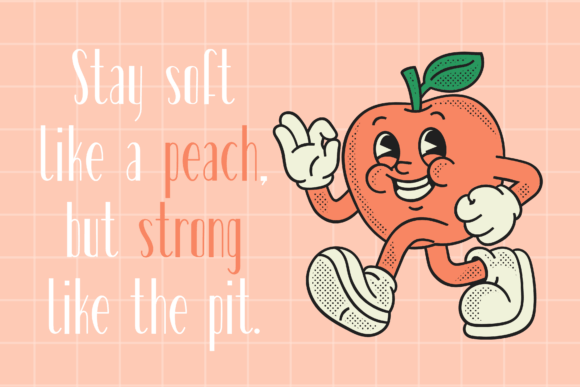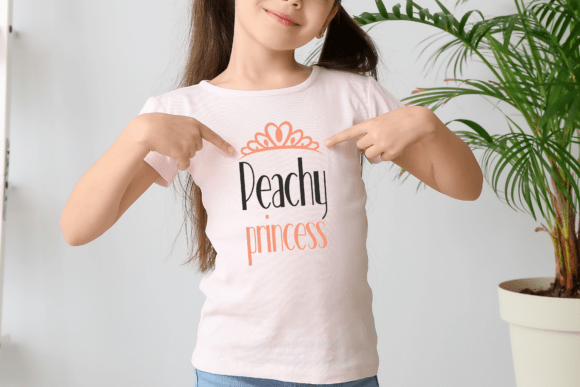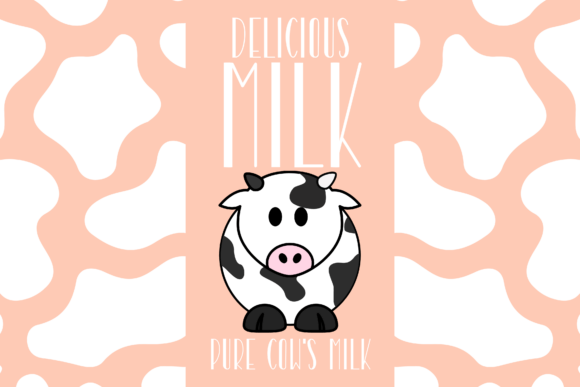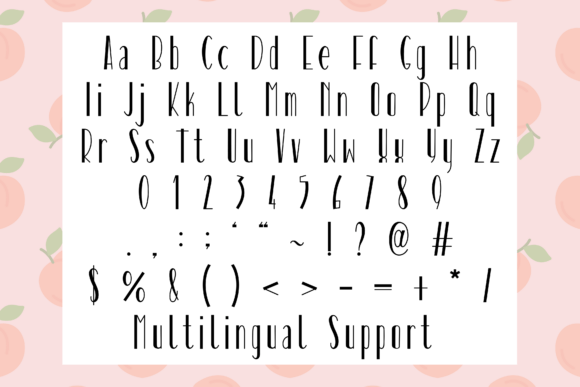
Introduction to Peachyqueen Font
PeachyQueen is a playful display font featuring thin characters with a cute and funny vibe.
It’s perfect for all kinds of creative projects—logos, posters, banners, ads, crafts, packaging, stickers, kids’ designs, store branding, apparel, and so much more .
Key Features of Peachyqueen Font
Why Choose Peachyqueen Font?
Peachyqueen Font offers exceptional quality and versatility, making it a valuable addition to your design toolkit. Whether you’re creating for personal projects or commercial use, Peachyqueen Font delivers professional results.